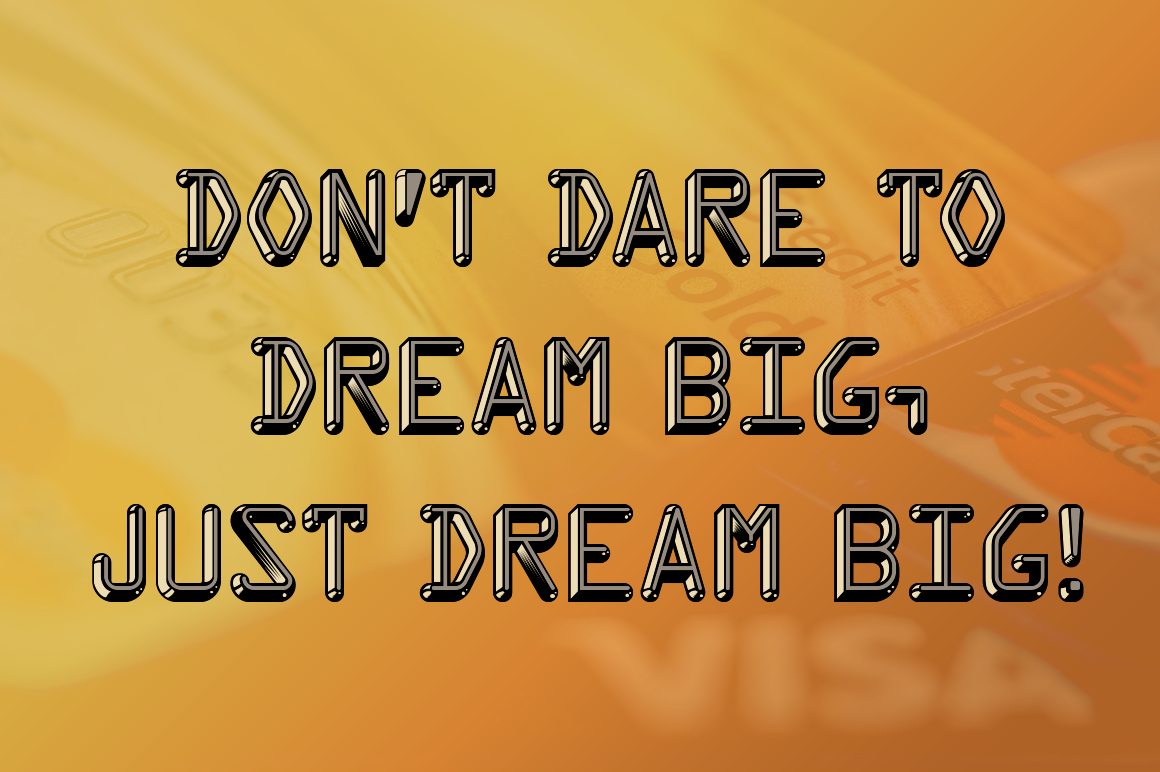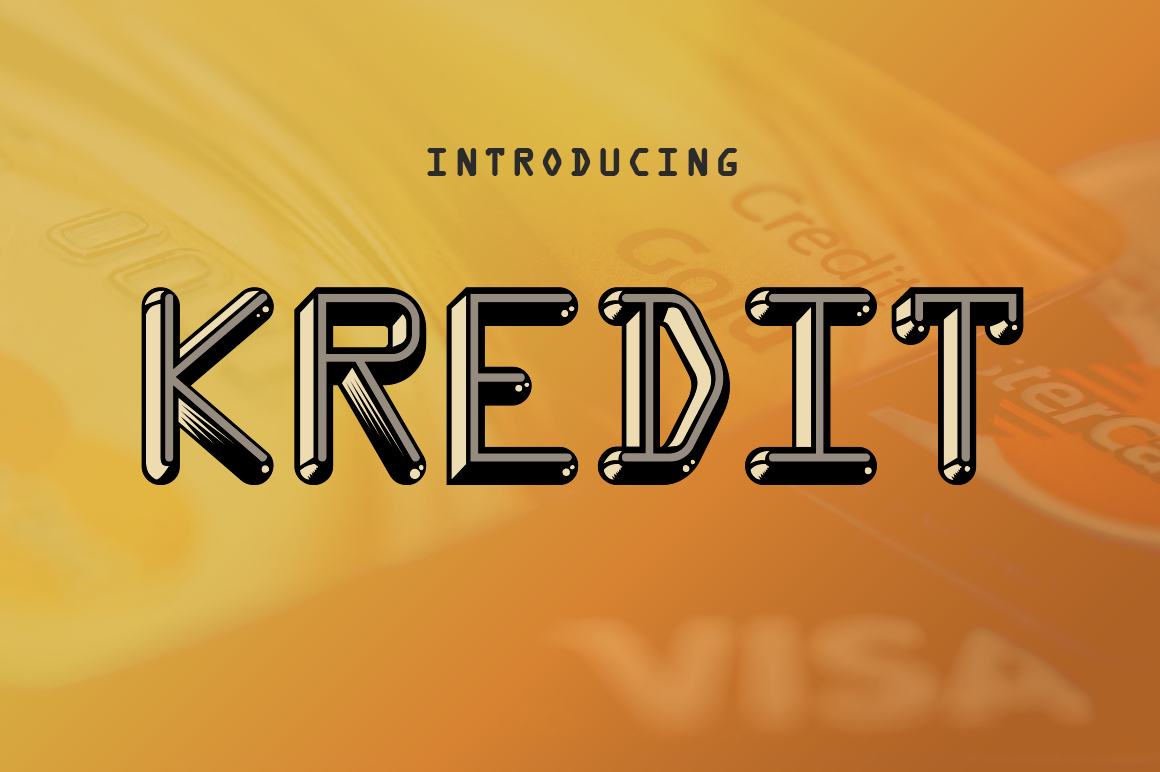
Kredit
About Kredit Font
“Kredit is an OCR-A imbued credit card font. Use the transparent regular style or stack the back, front & shine layers.” This free decorative, display is available for free from Typodermic.